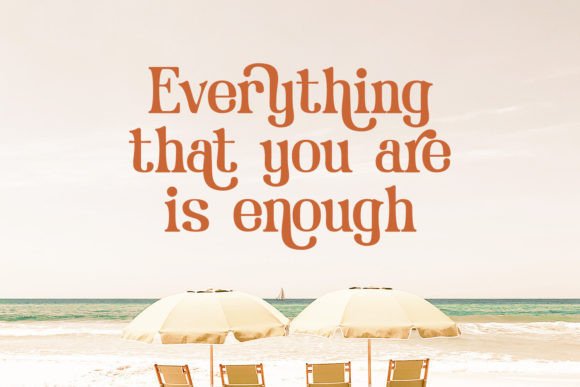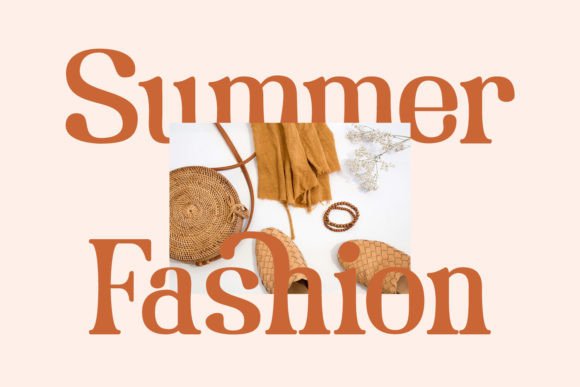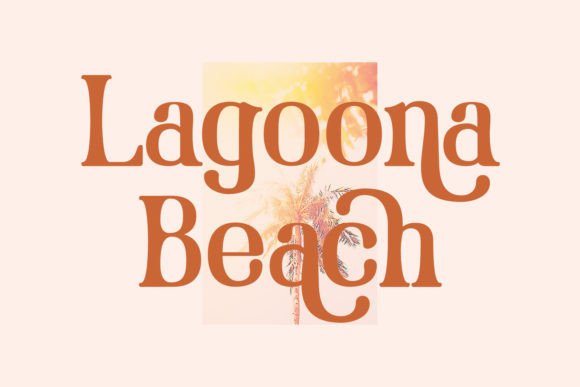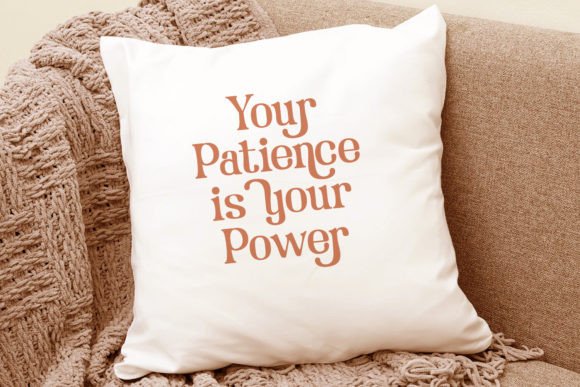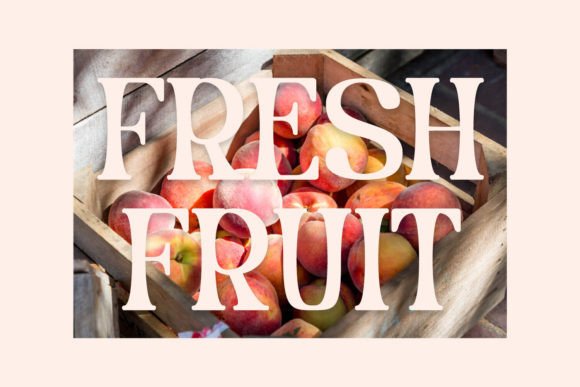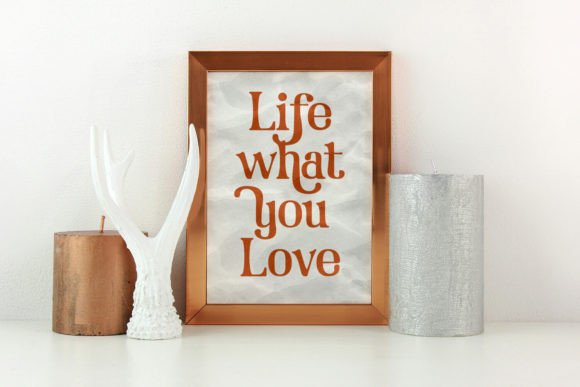
Introduction to Rhythm Cares Font
Rhythm Cares is a captivating serif font that dances across the page with modern elegance and style.
Crafted with meticulous attention to detail, Rhythm Cares is made with sleek lines, subtle curves, and balanced proportions that create a harmonious rhythm on the page Each letter is designed to flow seamlessly into the next, creating a sense of fluidity and movement that captures the eye and engages the viewer.